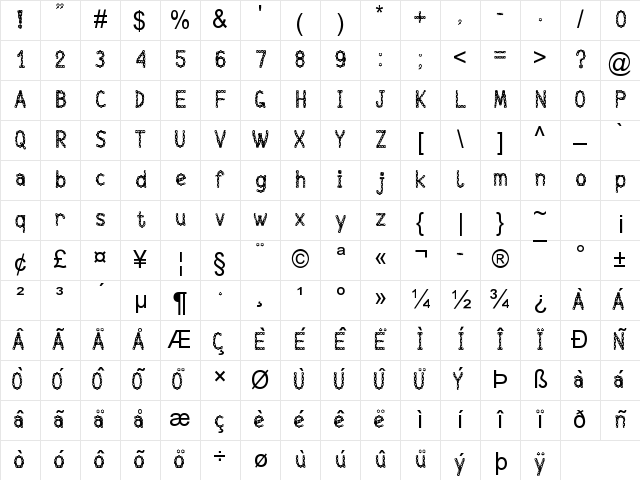
Complete Injancromvela222 Regular glyph index. Displaying only characters natively supported by Injancromvela222 Regular font.
Injancromvela222 is a composed and adaptable typeface that performs quietly and consistently across a wide range of design contexts.
Pro Tip: Use Injancromvela222 in both headline and body roles to test its range before committing to a single application.